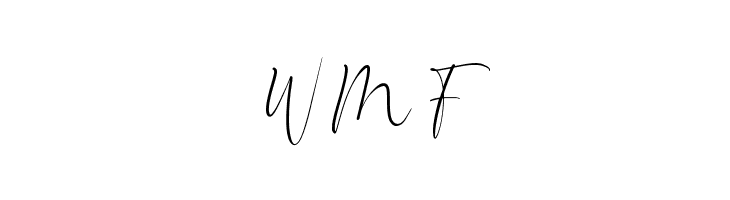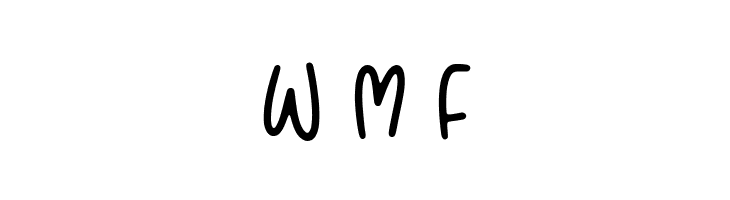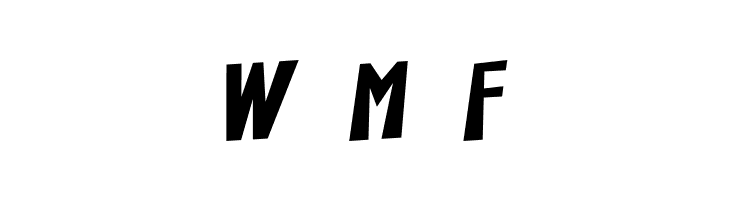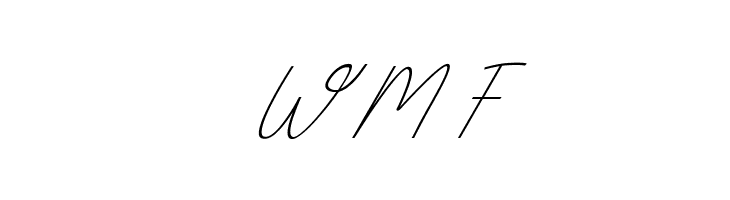
A bold, brush-style font with dynamic and expressive strokes.
An elegant and flowing script font with decorative swashes.
An elegant and sophisticated script typeface with flowing curves and delicate swashes.
An elegant, italic script font with flowing, cursive letters and high contrast strokes.
A playful and artistic script font with a handwritten feel.
A flowing, cursive font with elegant, sweeping curves and a hand-drawn aesthetic.
An elegant script font with graceful curves and ornate flourishes.
A graceful script font with flowing, interconnected letters and artistic swashes.
A cursive, handwritten font with elegant, flowing letters.
An elegant, flowing script font with a handwritten style.
An outlined, italicized font with a modern and elegant style.
An elegant and flowing script font with intricate loops and swashes.
An elegant, flowing script font with natural handwriting style.
A playful and whimsical script font with a handwritten style.
A fluid and elegant script font with a dynamic, cursive style.
A dynamic, expressive handwritten font with bold, flowing strokes.
A bold, modern sans-serif font with geometric lines and a strong, cohesive appearance.
A sleek, modern italic font with consistent stroke thickness and a flowing appearance.
A sophisticated and elegant script font with fluid, cursive letterforms.
A playful and elegant script font with bold, flowing uppercase and smooth, handwritten lowercase letters.
A playful, bold handwritten font with smooth curves and a casual style.
An artistic and decorative font with flowing, interconnected strokes and elegant swirls.
A graceful, flowing script font with elegant, thin strokes and a dynamic slant.
A fluid and elegant handwritten font with smooth, flowing strokes.
A graceful and elegant handwritten cursive font with flowing letterforms.
A flowing, cursive font with elegant loops and swashes, perfect for artistic projects.
A flowing, cursive font with elegant, sweeping lines and a handwritten appearance.
An elegant script font with flowing, interconnected letters and decorative flourishes.
A modern, italicized font with elongated, rounded characters.
A modern vintage font with rounded, elongated letterforms and consistent stroke width.
A bold, wavy, and playful font.